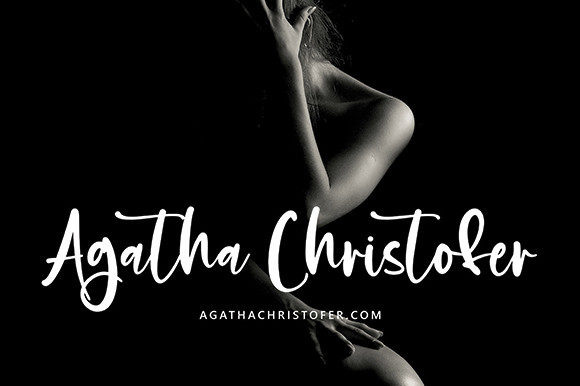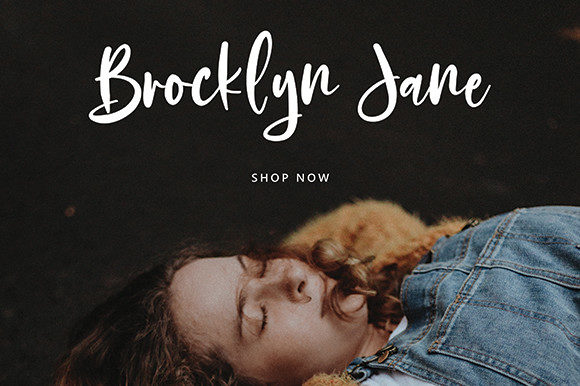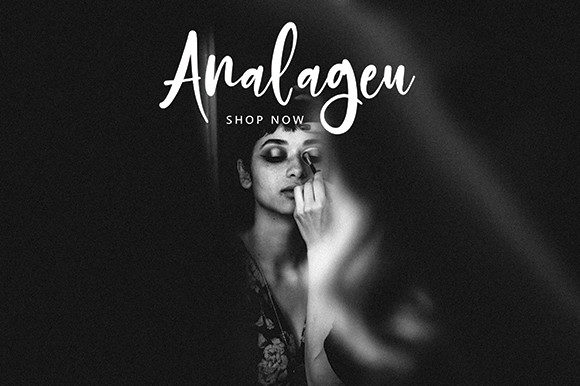
Introduction to Salmita Font
Remember that moment when you’re working on a creative project and you need the perfect font to bring it all together? The one that elevates your design from good to great? That’s where the Salmita Font comes in – a stunning script font that exudes elegance and sophistication, making it the perfect addition to any high-quality design.
Designed to provide a perfect balance between classic calligraphy and modern flair, the Salmita Font is a valuable resource for designers looking to add a touch of sophistication to their projects. Whether you’re working on a branding project or creating a beautiful invitation, this font is sure to impress with its impeccable form and versatile style.
Key Features of Salmita Font
- High-quality font design with a transparent background, perfect for creative projects that require a clean and minimalist look.
- Salmita Font is a versatile design element, suitable for use in logos, typography, and other graphic design elements.
- Salmita Font is a unique and creative addition to any design project, with its modern and sleek aesthetic.
Honest Review: Salmita Font
I recently had the chance to work with the Salmita Font for a creative project, and I must say it’s been a pleasant experience. This high-quality design resource is perfect for those looking for a unique and elegant touch to their work.
The font’s transparent background makes it super easy to integrate into any design without worrying about unwanted backgrounds or edges. This feature is particularly useful when working on projects that require a clean and minimalist aesthetic.
- ⚠️ Limited font styles and weights available
- ⚠️ May not be suitable for complex or large-scale designs
Overall, I’m impressed with the Salmita Font and would definitely recommend it to designers looking for a high-quality, easy-to-use font for their creative projects. With a little creativity, you can achieve some amazing results with this design resource.
The Salmita Font is ideal for a variety of creative projects, including logos, business cards, and marketing materials. Its unique design and high-quality features make it a versatile and effective tool for designers and non-designers alike.